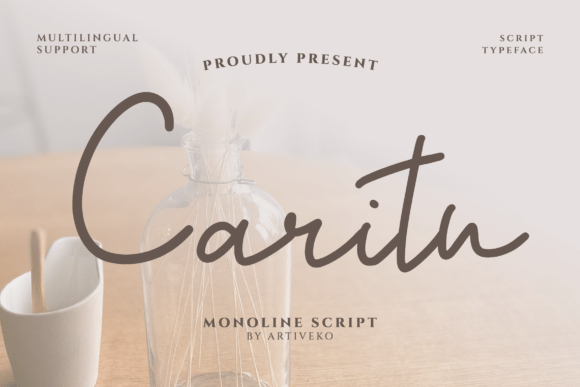
Introduction to Caritu Font
Caritu is a charming script font that blends casual elegance with a personal touch.
Designed to mimic natural handwriting, Caritu brings warmth and authenticity to your creative projects With its flowing curves, smooth ligatures, and subtle strokes, it’s perfect for use in branding, invitations, logos, packaging, social media posts, and more.
Key Features of Caritu Font
Why Choose Caritu Font?
Caritu Font offers exceptional quality and versatility, making it a valuable addition to your design toolkit. Whether you’re creating for personal projects or commercial use, Caritu Font delivers professional results.